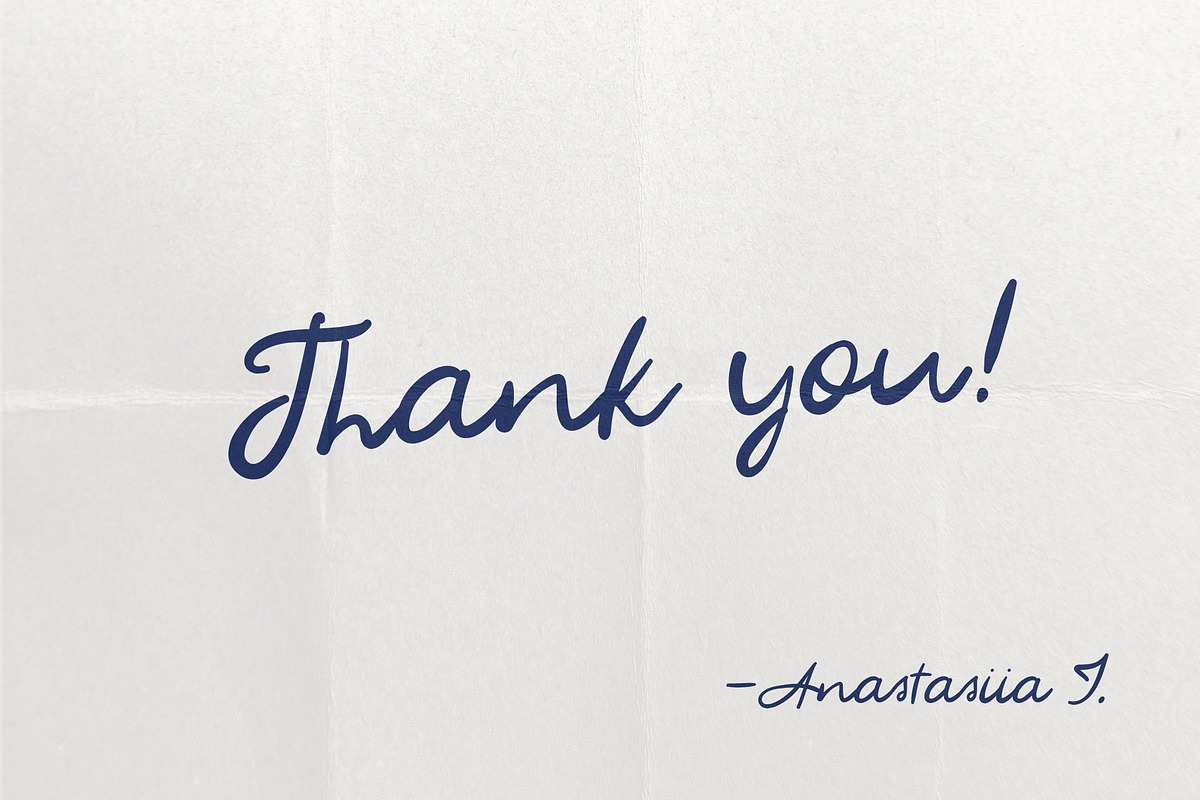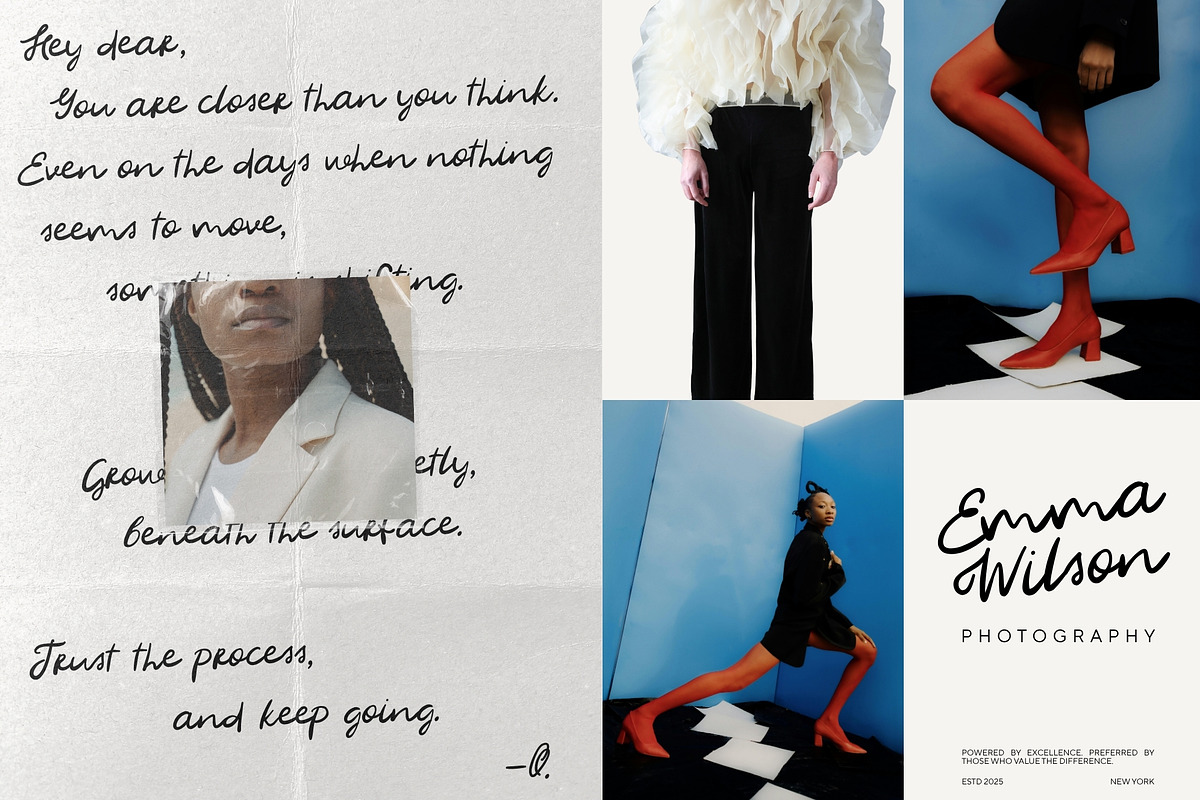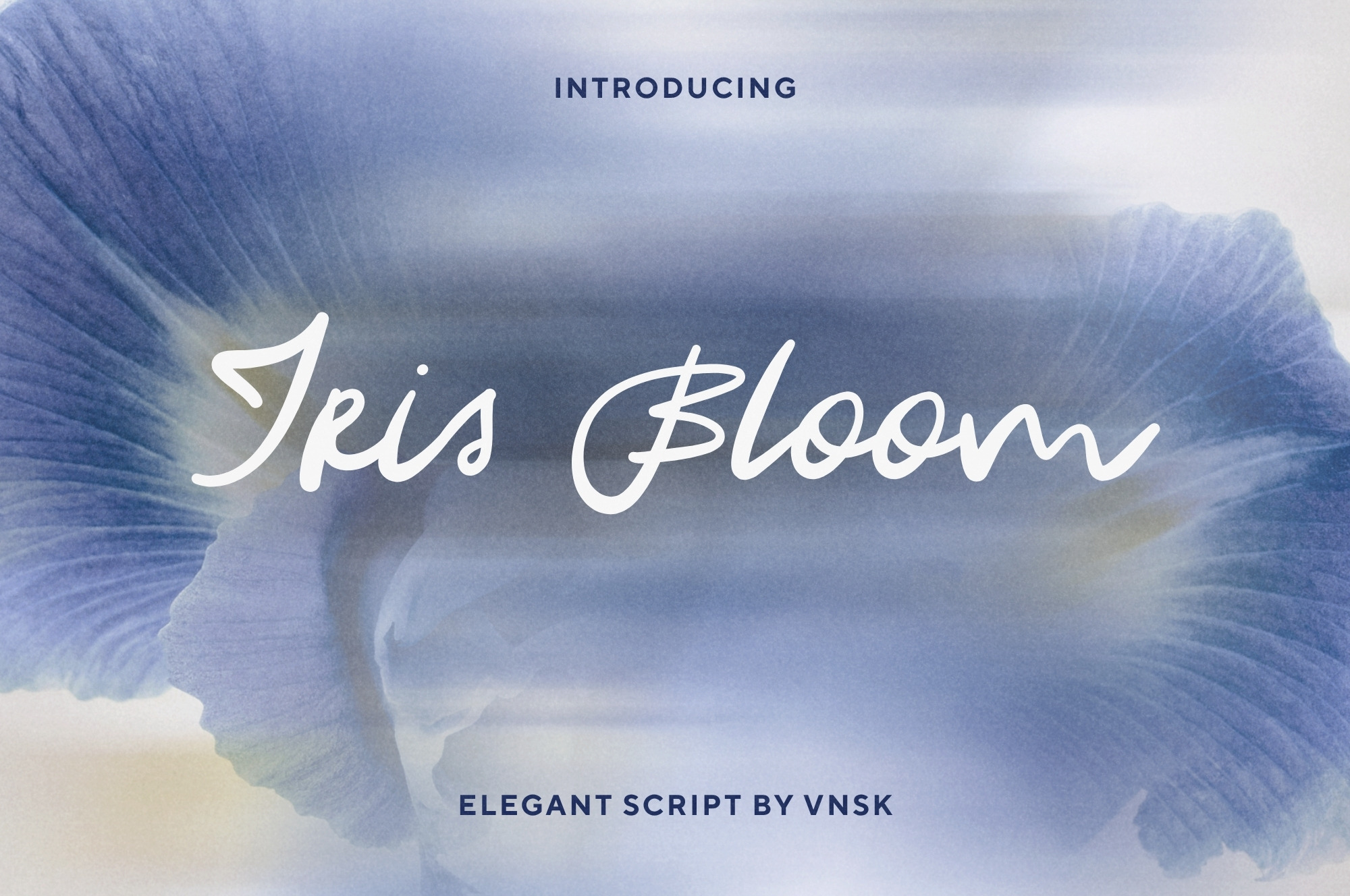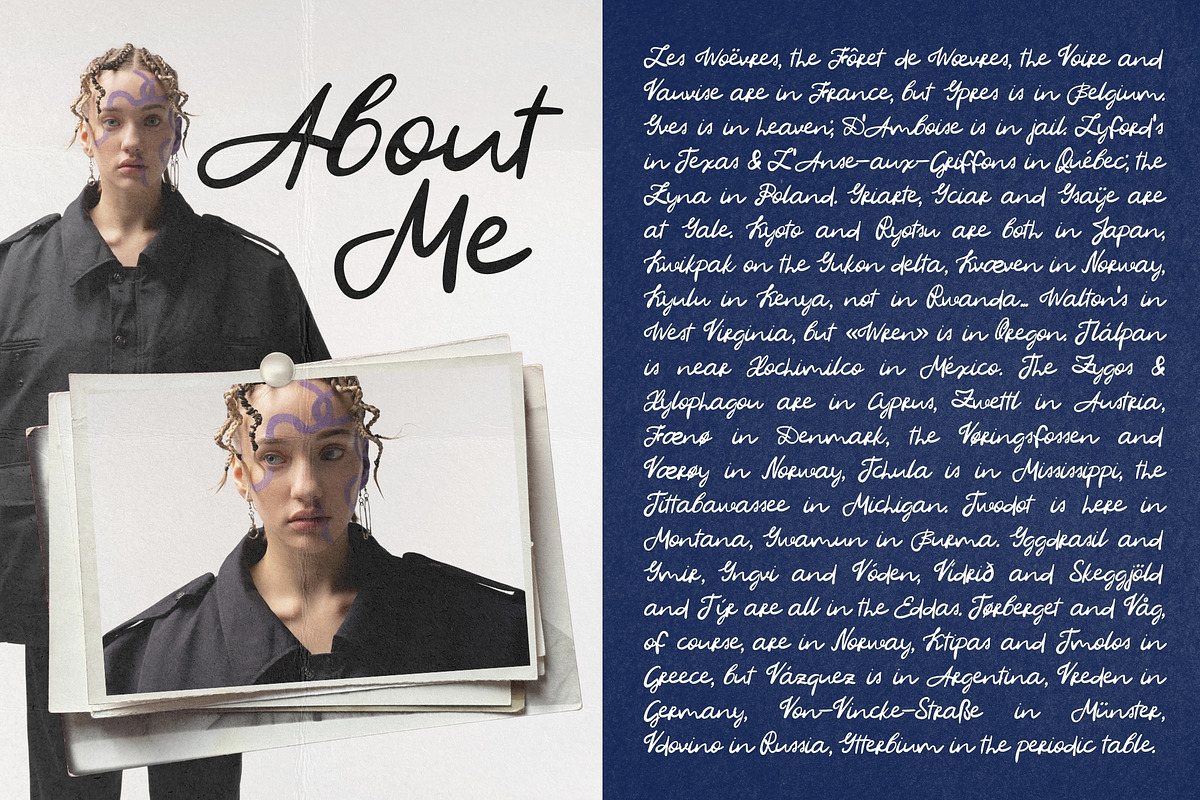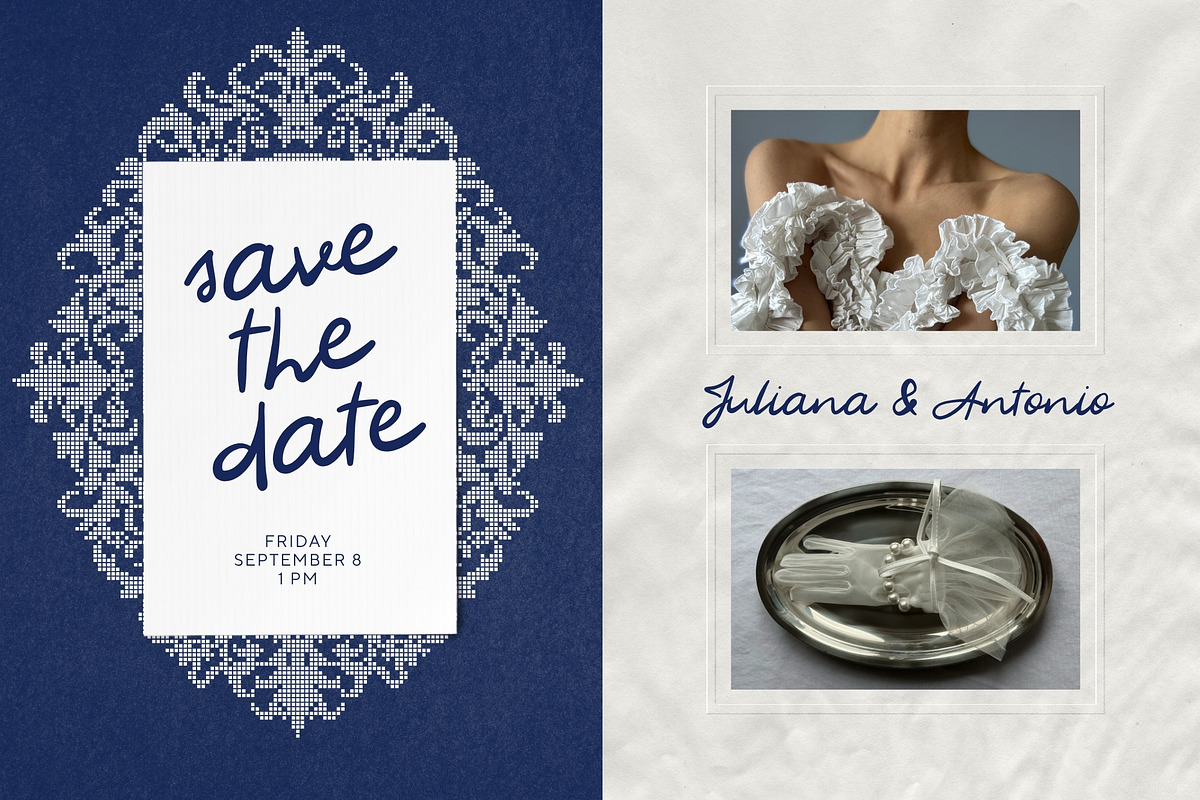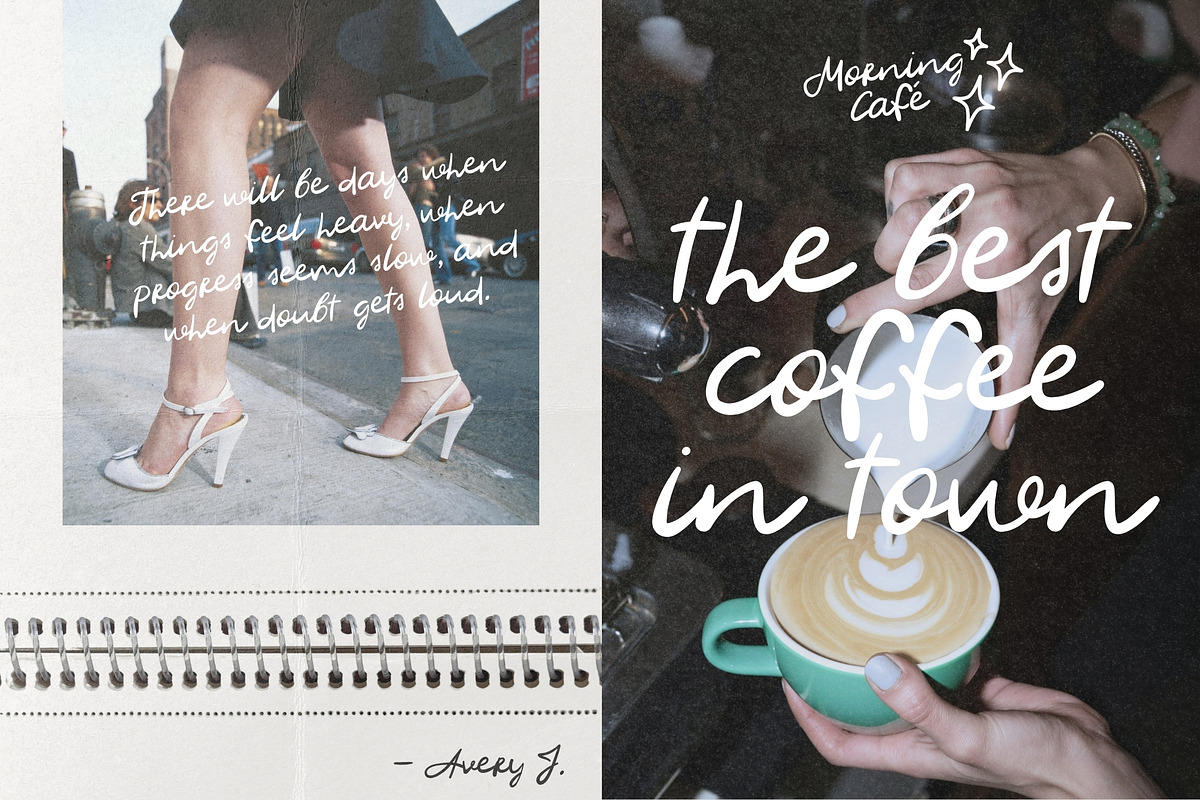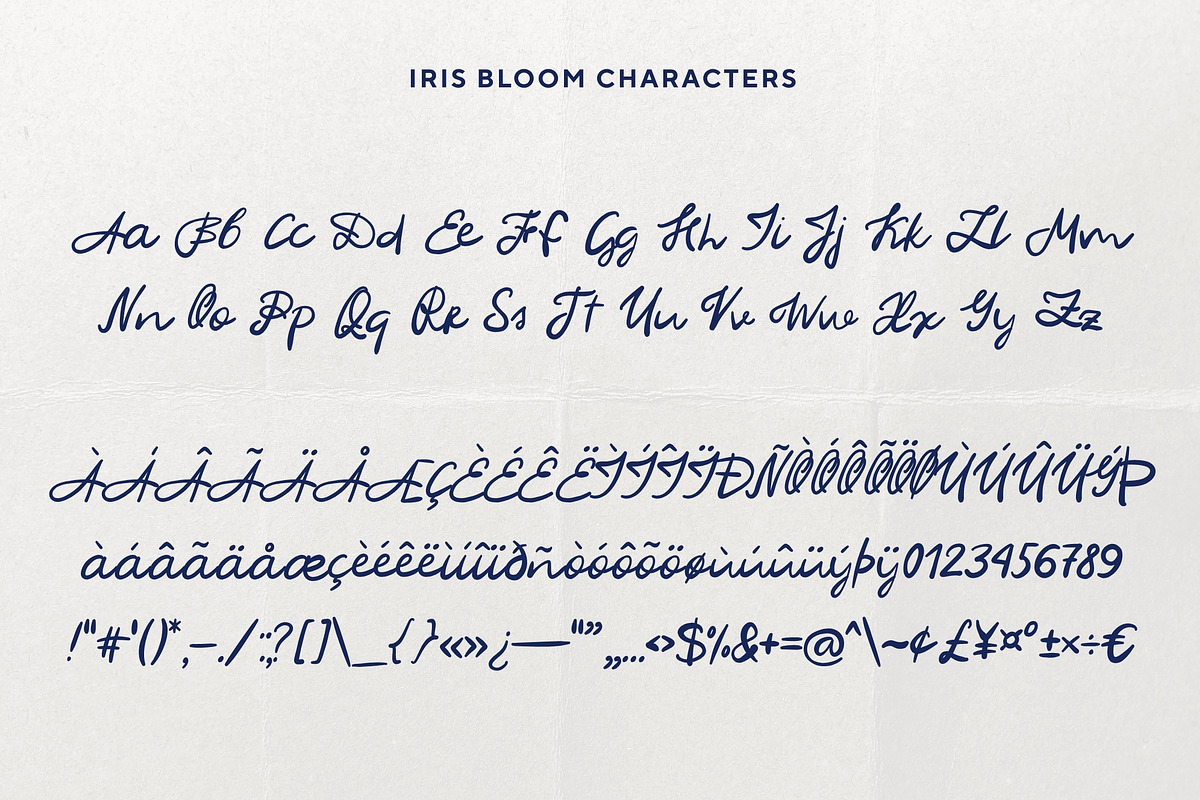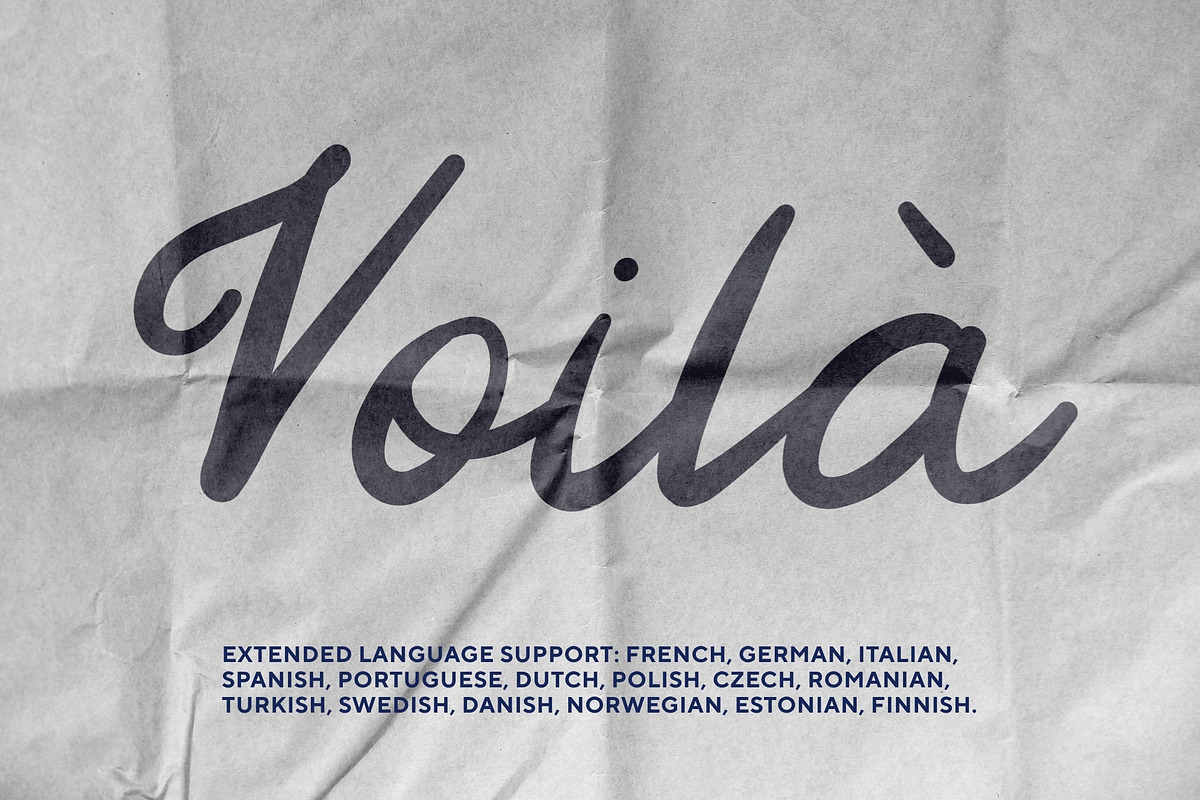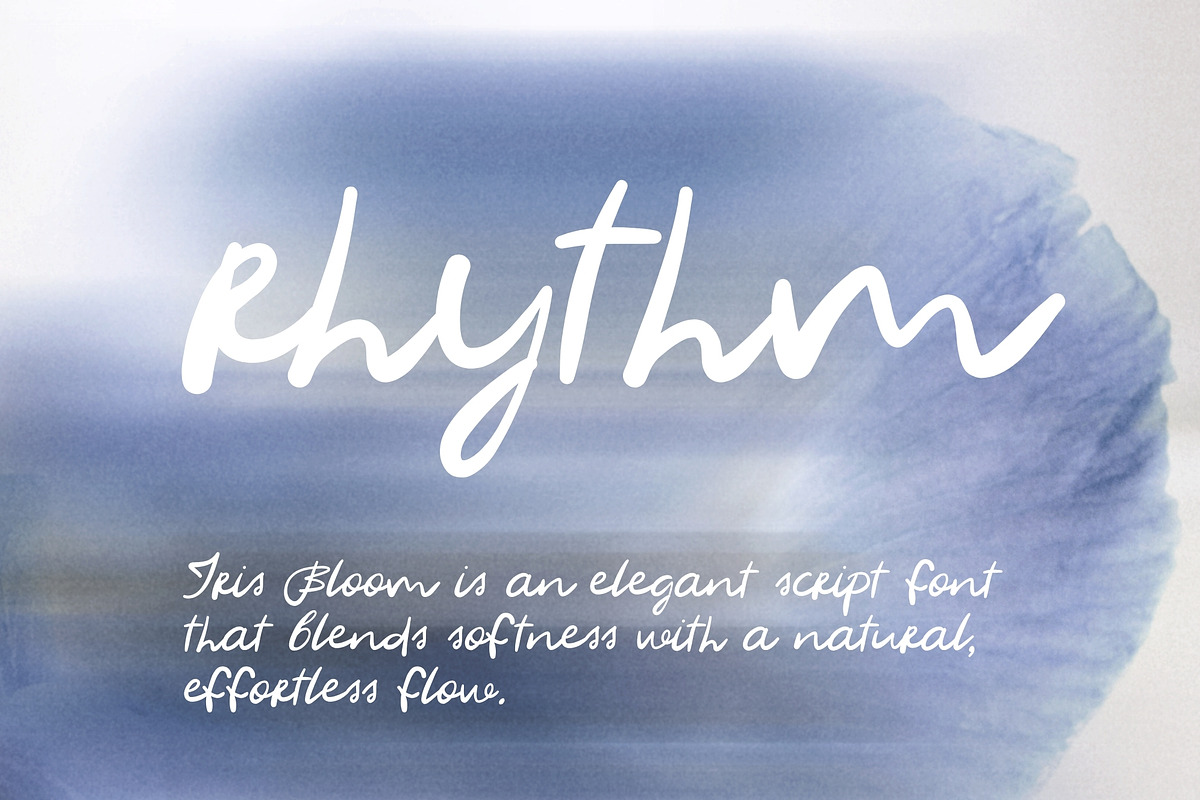
Iris Bloom: Elegant Script Font
Iris Bloom is an elegant script font that blends softness with a natural, effortless flow. Designed to feel both refined and relaxed, it captures the charm of handwritten lettering while maintaining a polished, modern look.
With its fluid strokes and delicate curves, Iris Bloom is perfect for wedding stationery, branding, logos, and editorial designs that call for a feminine and timeless touch. It works beautifully across both formal and casual compositions, from luxury invitations to lifestyle visuals.
✦Features:
Uppercase & lowercase letters
✦Perfect For:
Wedding invitations & stationery
Branding & logos
Social media & content creation
Packaging design
Editorial layouts
Quotes & lifestyle graphics